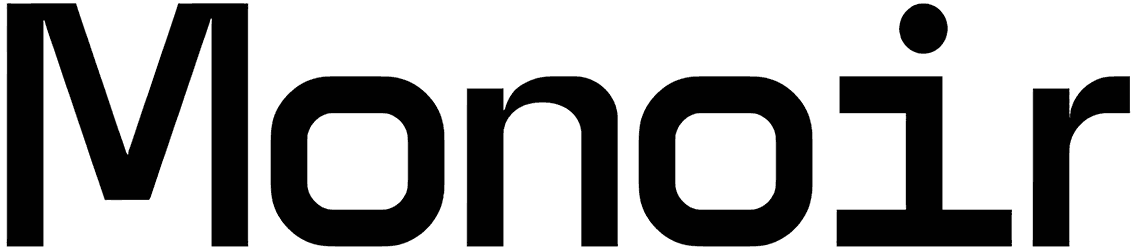
Monoir Font
Monoir font is a testament to the creativity and imagination of humanity, as it captures the essence of the unknown and mysterious. This sci-fi font has solid and modern lines that refer to otherworldly technology, which…
Monoir font is a testament to the creativity and imagination of humanity, as it captures the essence of the unknown and mysterious. This sci-fi font has solid and modern lines that refer to otherworldly technology, which we can use to illustrate our dreams.
It’s as if advanced beings have made this monospace font that communicates in ways beyond our understanding. So if you’re looking for adventure stories, modern teen comics, or cool posters for space fairs, join the ranks of interstellar explorers.